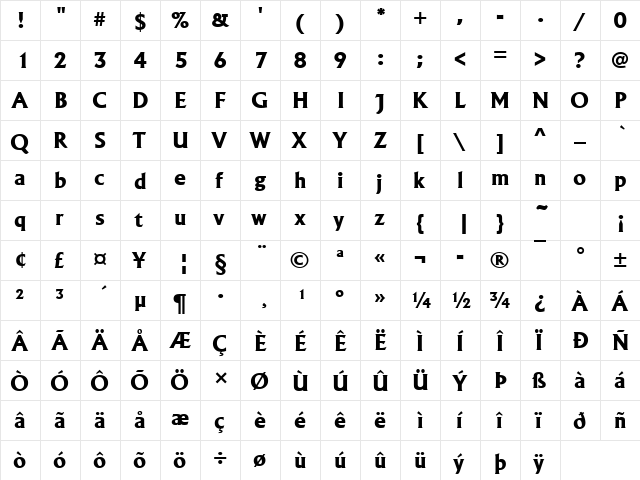
URWAlbireoTBol Regular
Design Context for URWAlbireoTBol Typeface
URWAlbireoTBol offers clean, dependable letterforms without strong stylistic allegiance, making it a practical choice for designers who need flexibility.
Pro Tip: Pair URWAlbireoTBol with a font of contrasting weight or personality to build a more expressive typographic hierarchy.